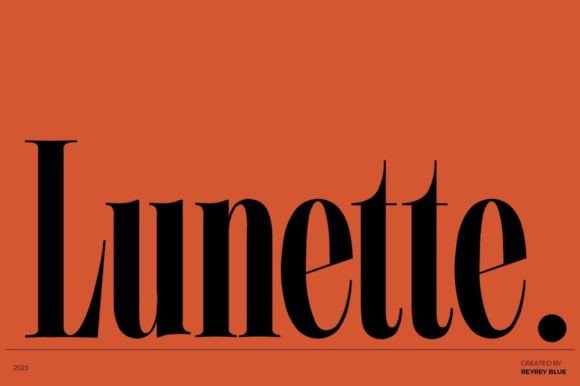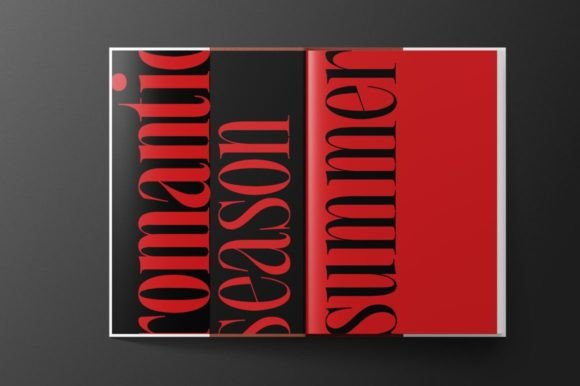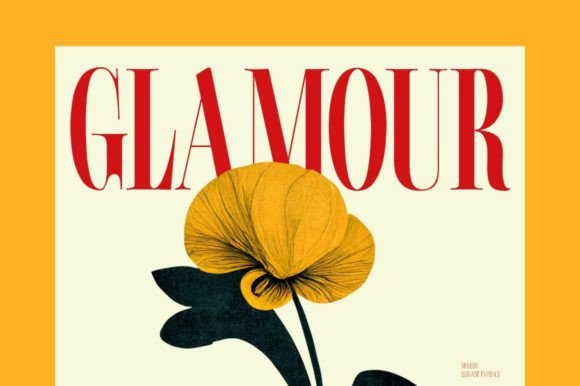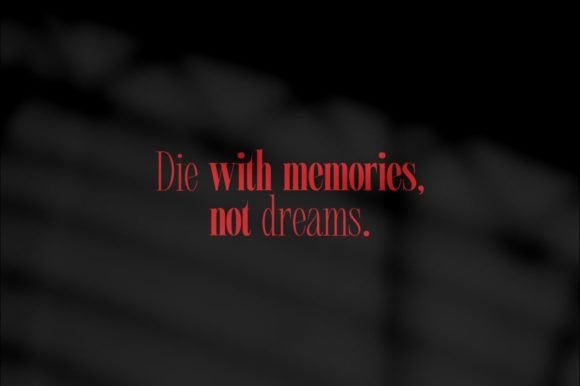
Lunette Font
About the Lunette Font
Explore the possibilities with Lunette Font, a font that offers both beauty and functionality. Introducing, Lunette a strong and classy font with an elegant touch.  It boasts 3 stunning styles, full beautiful upper and lower case letters, number and punctuation marks. Lunette is perfectly suitable for displays for headings, logos, branding, magazines, product packaging, invitations and so much more!
Lunette’s elegant strength makes it ideal for headlines, logos, and short-form text in branding materials and packaging. Its refined curves also lend themselves well to high-end invitations and magazine covers. However, the font’s decorative nature makes it less suitable for body text or UI elements where readability is paramount. Avoid using it for long paragraphs or small sizes.
To complement Lunette’s sophisticated feel, consider pairing it with a clean sans-serif like Lato for body copy or a geometric sans-serif like Futura for a modern contrast. For a more traditional feel, a classic serif such as Garamond would provide a balanced counterpoint.
Lunette projects a confident, sophisticated personality. It is best suited to brands aiming for a premium or luxurious image, those emphasizing quality and craftsmanship.